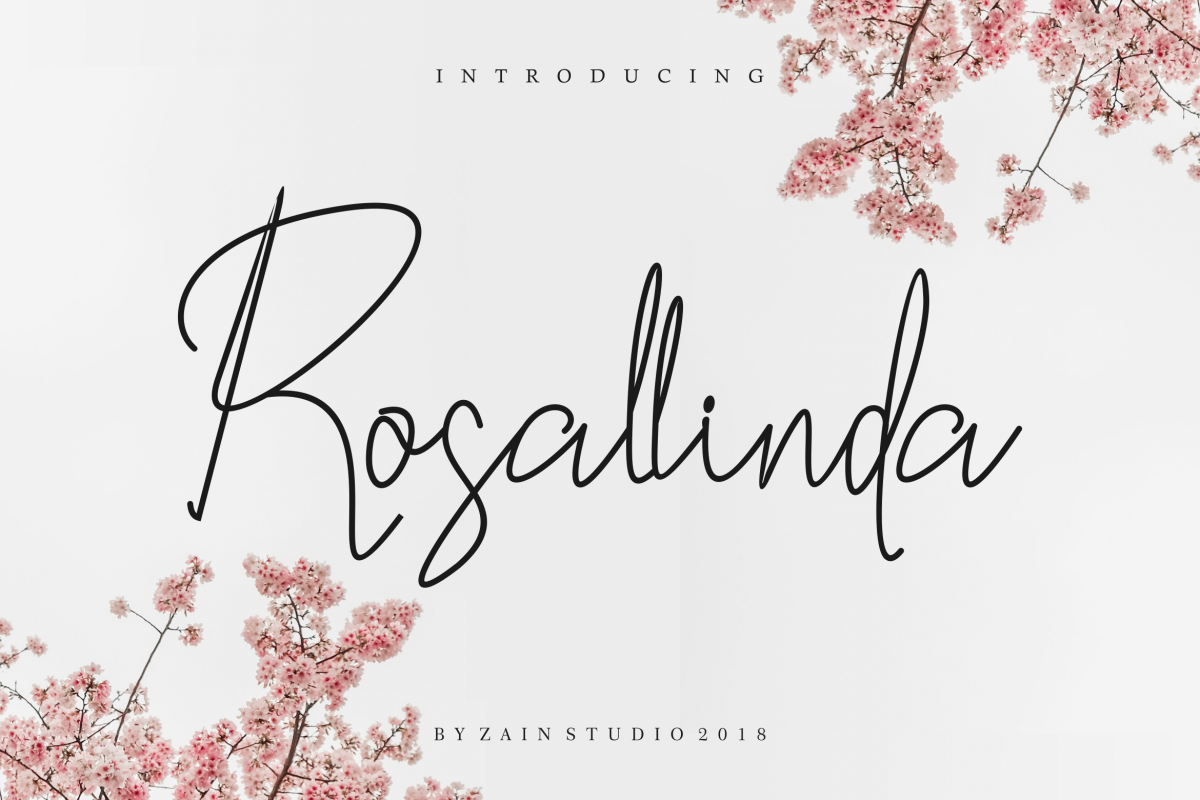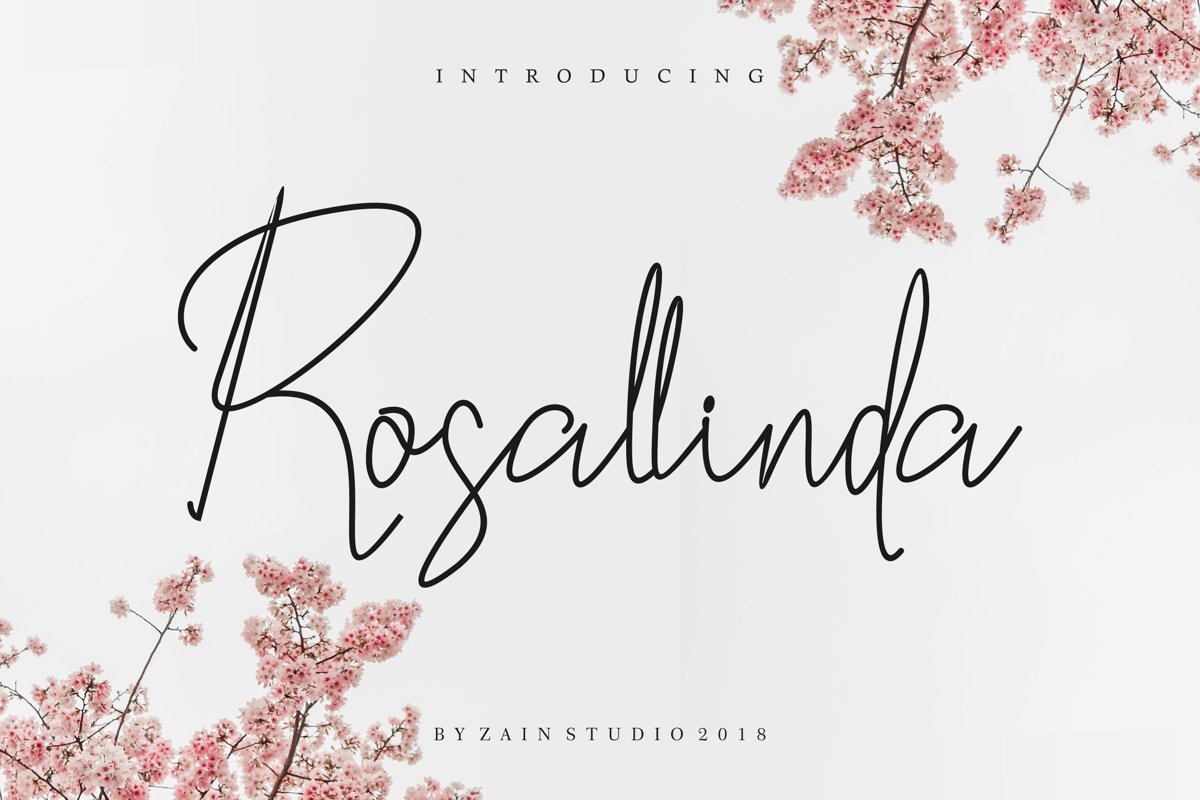
Rosallinda Script
Rosallinda
The Rosallinda is a handwritten signature script.
It’s perfect for logo branding projects, home ware designs, boutiques, hotel names, men apparel designs, product packaging, or simply as a stylish text overlay to any background image.